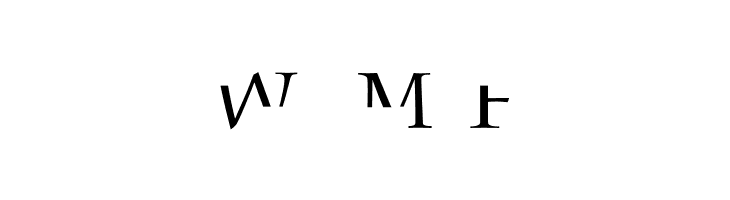
MissingLinks Font
A bold, geometric font with missing segments for a modern, dynamic look.
A modern, geometric font with clean lines and a futuristic aesthetic.
Sudden Fall Font
A bold, 3D block font with playful figures and shadow effects.
RodauButtons Font
A decorative font with geometric characters enclosed in circles, offering a modern and artistic style.